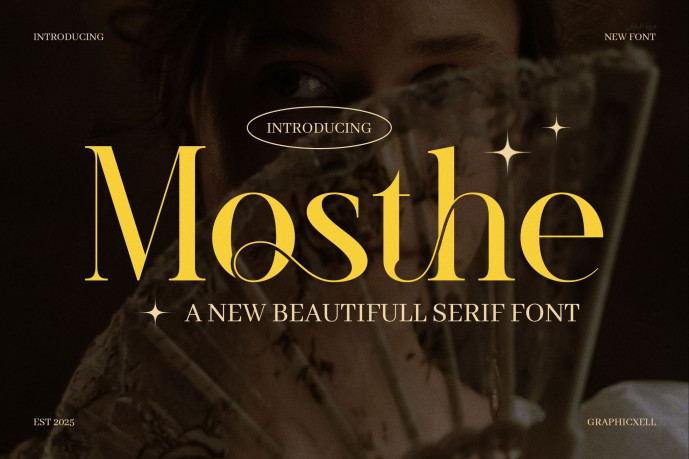
Mosthe Serif Font
Mosthe Serif font is a refined serif display typeface that brings vintage grace into modern designs. It strikes a beautiful balance between classic and fresh, making it ideal for fashion, editorial, logos, and luxury branding. Whether you use it for a boutique name, a magazine title, or packaging, this font gives your work a touch of style and class.
First, observe the contrast: Mosthe Serif features thin and thick strokes that create elegant dynamics. At the same time, its serifs are sharp but not heavy, giving visual interest without distraction. In addition, the shapes remain clean and uncluttered, which helps readability in large display use.
Moreover, it includes a full character set: uppercase, lowercase, numerals, punctuation, and accented glyphs. Thus you can design in multiple languages and varied layouts. You can pair Mosthe Serif with a neutral sans serif to anchor body text and allow the serif to shine in headlines.
Here are its key features and uses:
• Clean, readable letterforms in display sizes
• Full glyph set: letters, numbers, symbols, accents
• Great for logos, branding, editorial, fashion
• Works in print and digital formats
• Pairs well with simple sans serif fonts
With Mosthe Serif font, your layouts gain a sense of elegance and consistency. For example, you might use it in book covers, fashion lookbooks, boutique branding, invitations, or web headers. Because of its balanced style, it adapts well to both high-end and artistic projects.